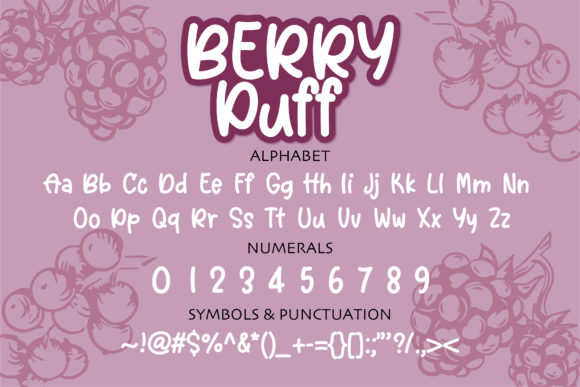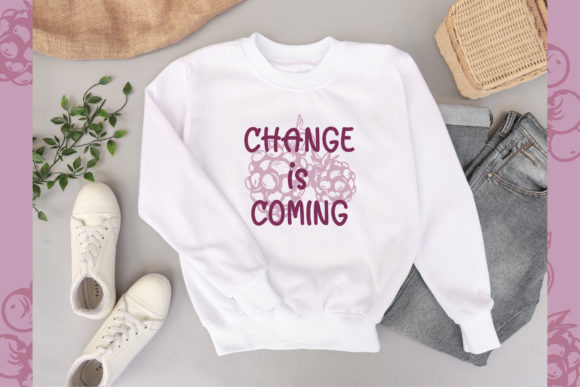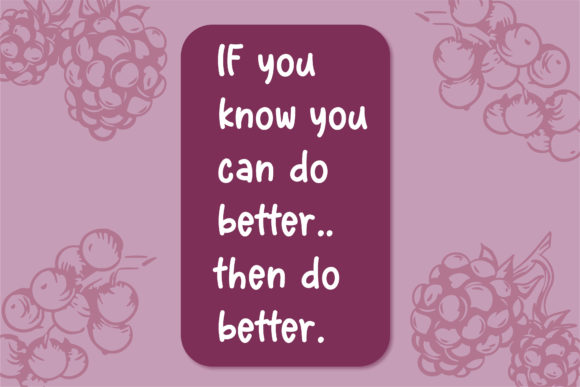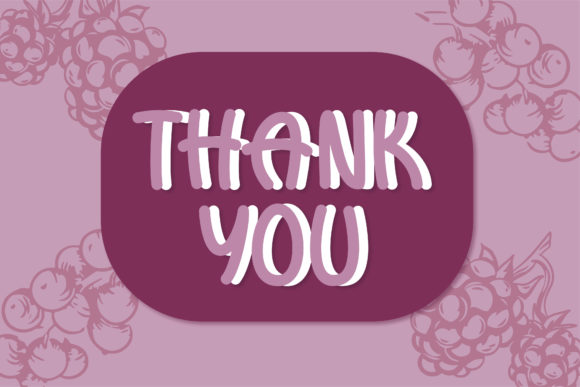
Berry Puff Font: The Cute and Casual Handwritten Font for Your Design Needs
Are you a designer or crafter looking for a unique and versatile font to elevate your creative projects? Look no further than Berry Puff, a cute and casual handwritten font that’s perfect for a wide range of designs. With its natural and distinctive style, Berry Puff is sure to capture the attention of your audience and leave a lasting impression.
The Charm of Berry Puff
Berry Puff is a one-of-a-kind font that exudes a playful and carefree vibe. Its handwritten style is reminiscent of a child’s scribbles, making it an excellent choice for projects that require a touch of whimsy and personality. The font’s natural and unique style makes it incredibly fitting for a large pool of designs, from branding and packaging to invitations and DIY crafts.
The versatility of Berry Puff is one of its most significant advantages. This font can be used for a wide range of projects, including:
- Branding and Logo Design: Create a memorable brand identity with Berry Puff’s playful and distinctive style.
- Packaging Design: Add a personal touch to your product packaging and make it stand out on store shelves.
- Invitations and Stationery: Create beautiful and unique invitations, greeting cards, and stationery with Berry Puff’s charming style.
- DIY Crafts: Use Berry Puff to add a personal touch to your DIY craft projects, such as handmade cards, scrapbooking, and journaling.
Why Choose Berry Puff?
So, why should you choose Berry Puff for your design needs? Here are just a few reasons:
- Unique Style: Berry Puff’s natural and unique style sets it apart from other fonts, ensuring your designs will stand out from the crowd.
- Cute and Playful: The font’s cute and playful vibe makes it perfect for projects that require a touch of whimsy and personality.
- Easy to Read: Despite its playful style, Berry Puff is easy to read, making it suitable for both digital and print designs.
- Versatile: Berry Puff can be used for a wide range of projects, making it an excellent addition to your font collection.
Tips for Using Berry Puff
To get the most out of Berry Puff, here are a few tips to keep in mind:
- Pair with Other Fonts: Combine Berry Puff with other fonts to create a unique and visually appealing design.
- Experiment with Colors: Try out different colors and color combinations to add depth and interest to your design.
- Play with Sizes: Experiment with different font sizes to create visual hierarchy and add emphasis to your design.